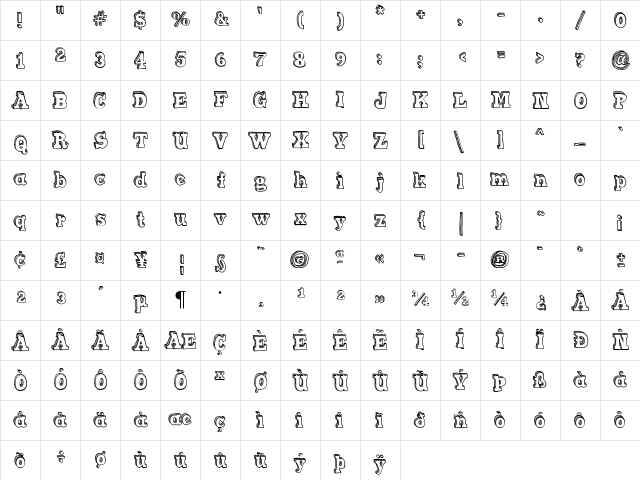
Sketch Match Regular
Foundry: Galdino Otten
Design Context for Sketch Match
Sketch Match is a composed and adaptable typeface that performs quietly and consistently across a wide range of design contexts.